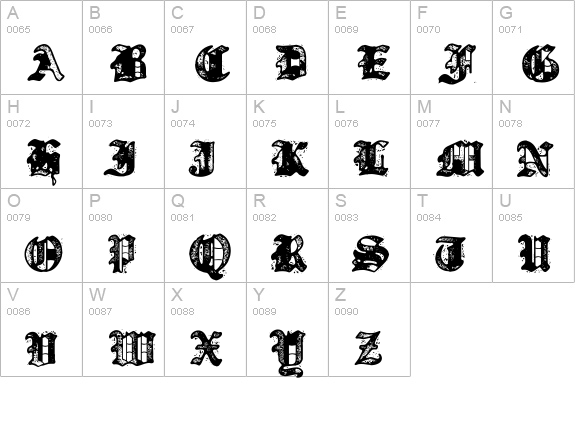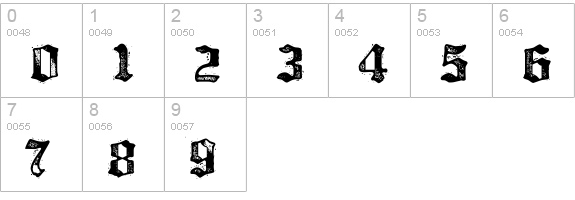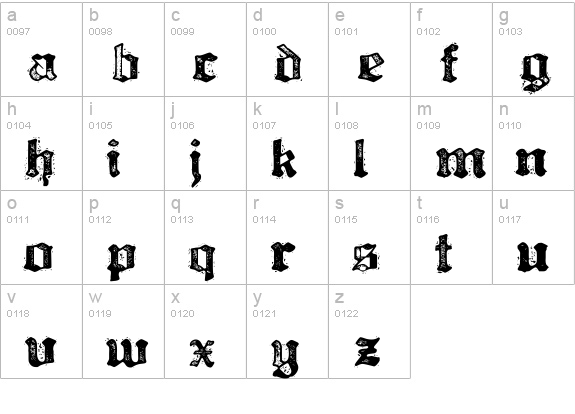
Bill Hicks 5 Font Details
Introducing Bill Hicks 5 font, a bold and dynamic typeface that exudes creativity and individuality. With its unique design and modern aesthetic, this font is perfect for making a statement in your projects. Bill Hicks 5 font is freely available to download at FontsMarket.com, allowing you to unleash your creativity without any restrictions. Stand out from the crowd and elevate your designs with this versatile and eye-catching font. Whether you're working on branding, advertising, or creative projects, Bill Hicks 5 font is sure to make a lasting impression. Download it now and let your creativity run wild!